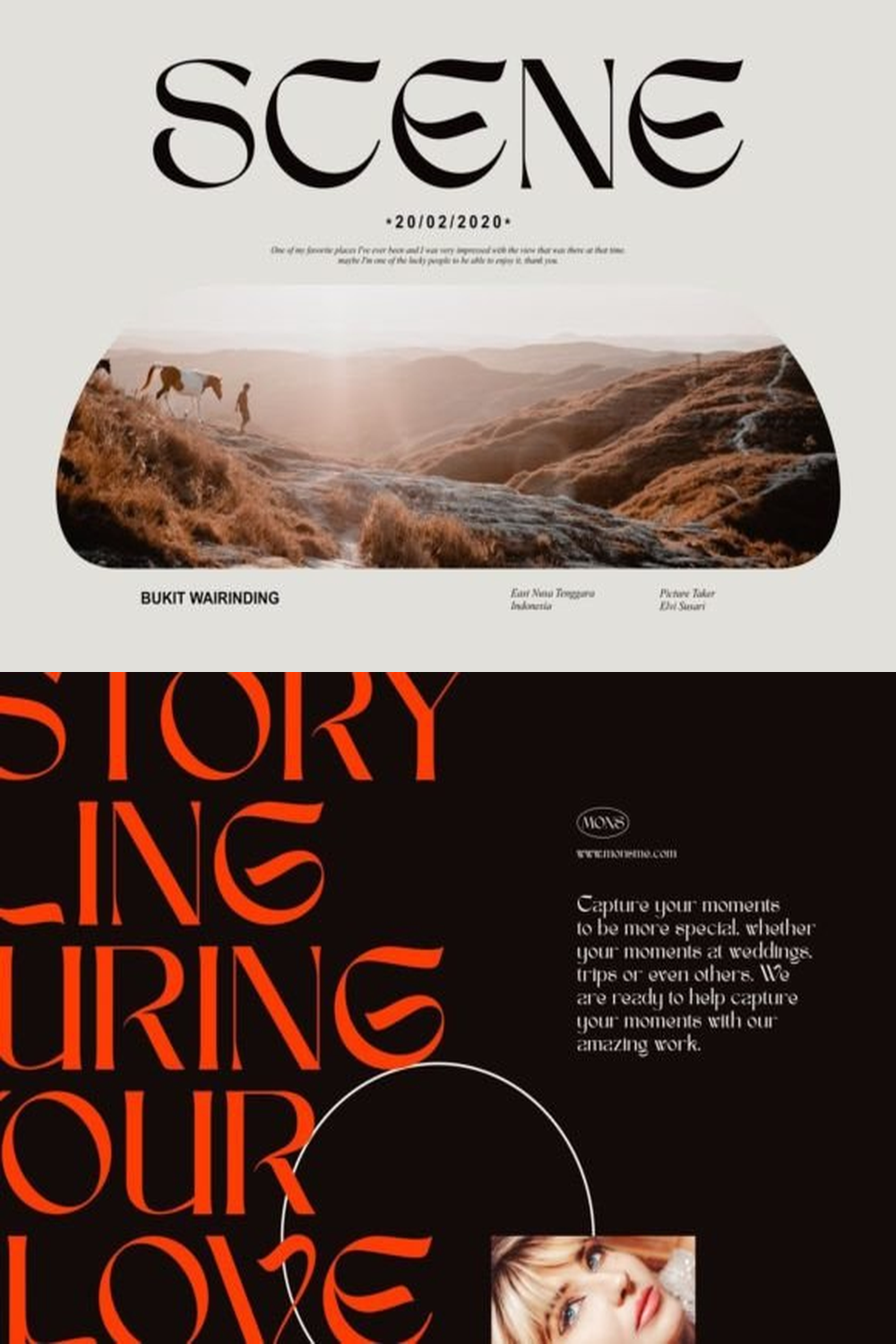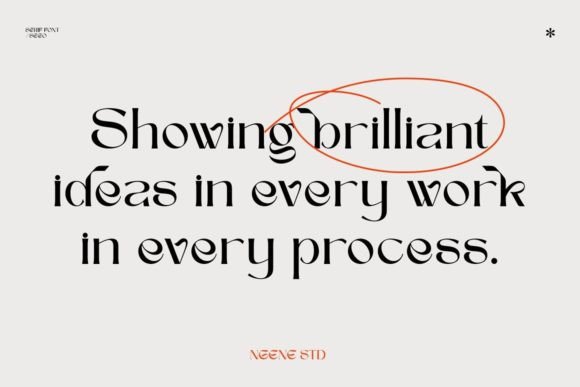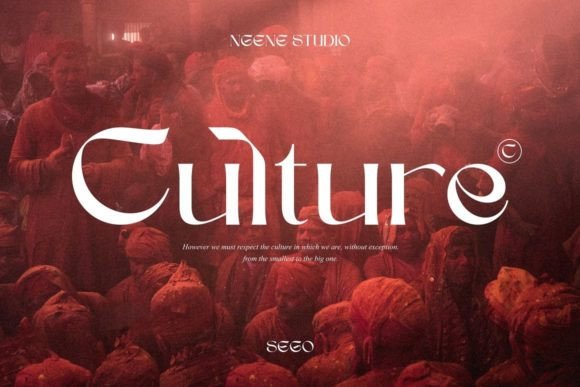
Sego Font
About the Sego Font
Presenting Sego Font, a unique and stylish typeface that will make your work stand out. Sego is a stylish, uniquely-shaped serif font. No matter the topic, this font will be an incredible asset to your fonts’ library, as it has the potential to elevate any creation.